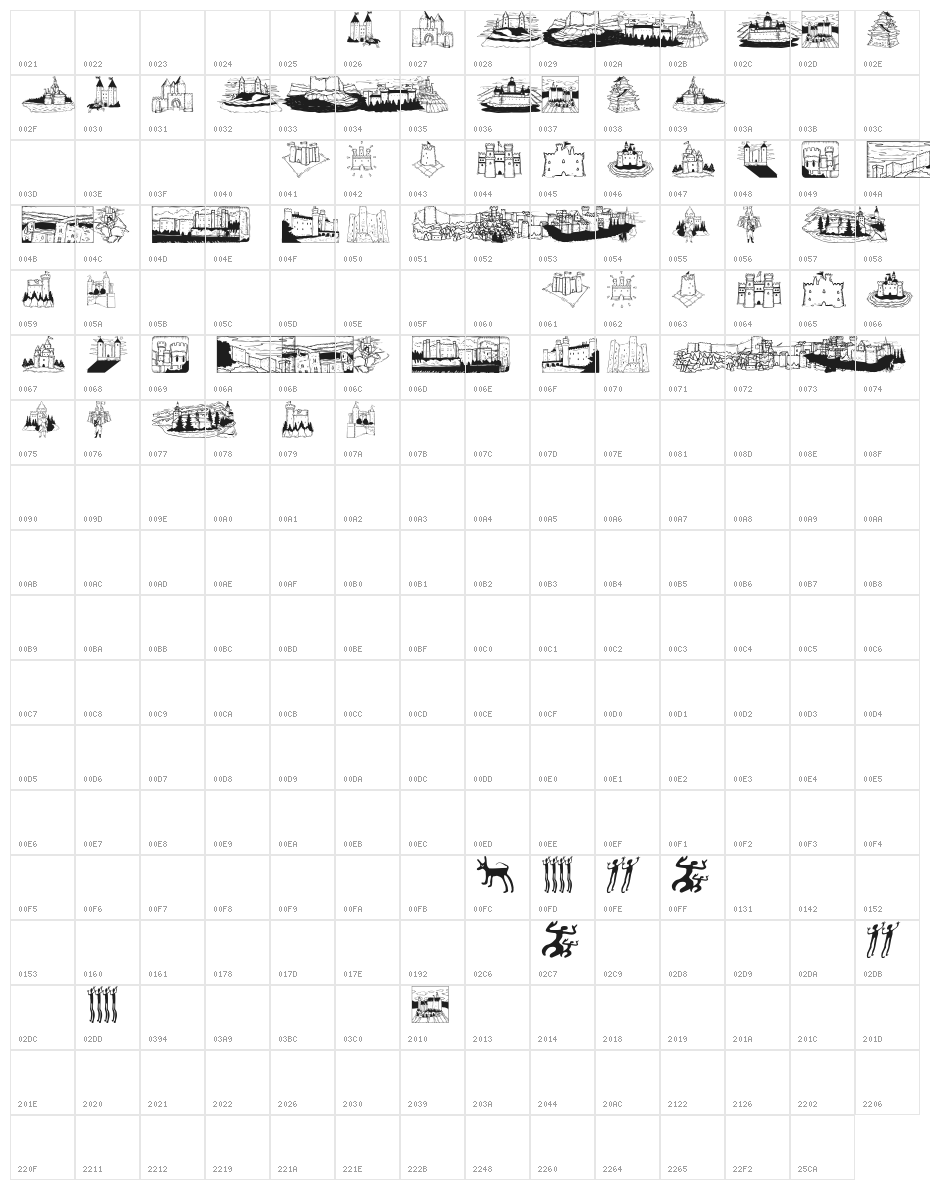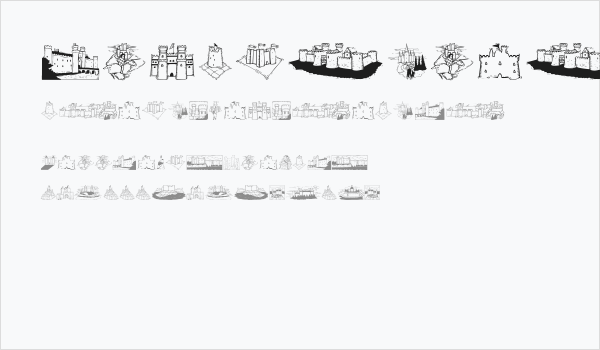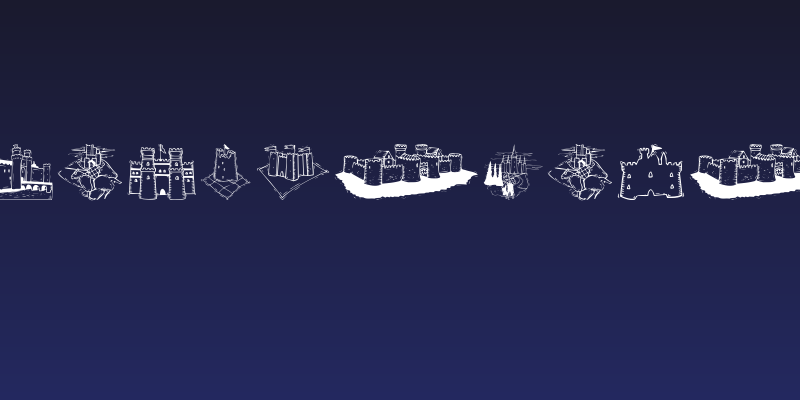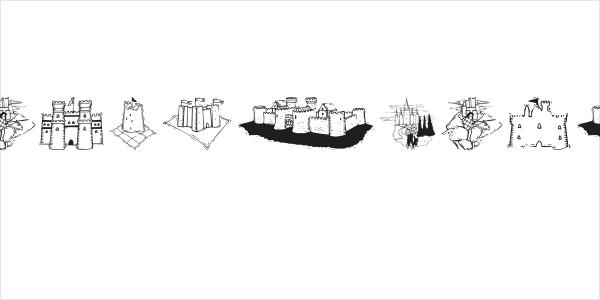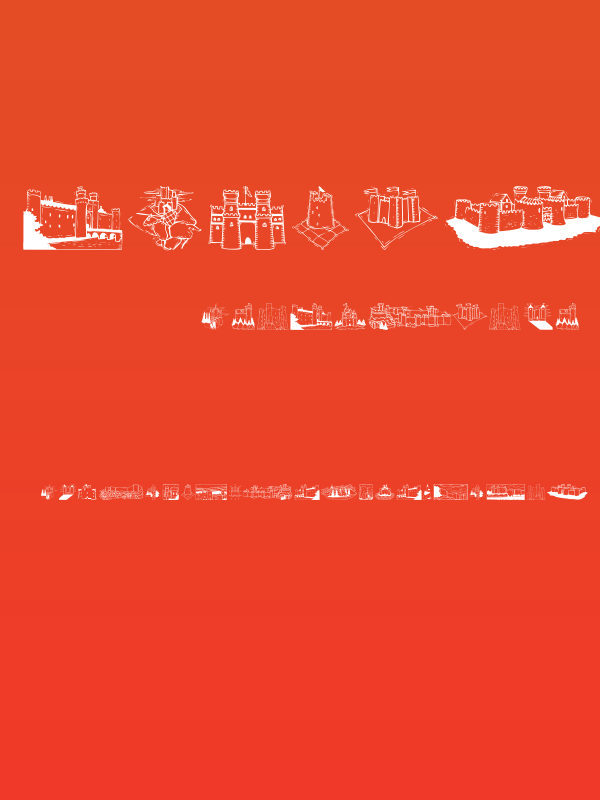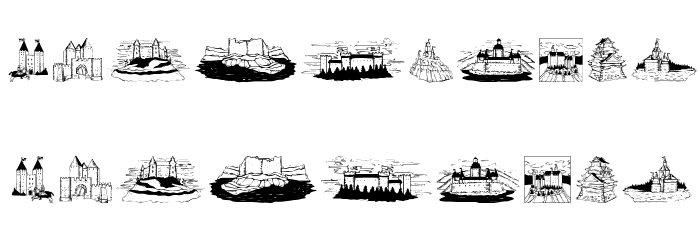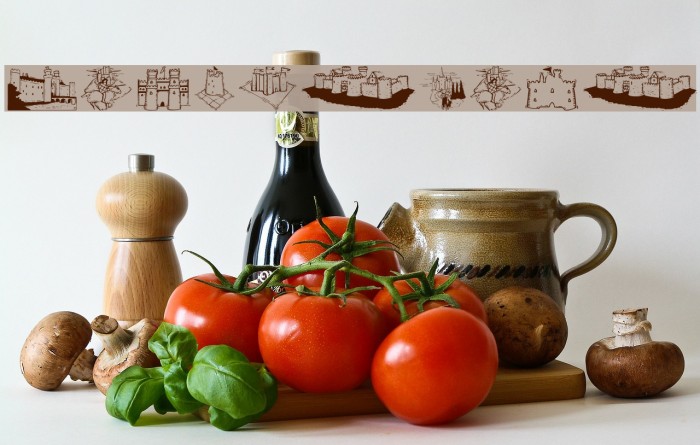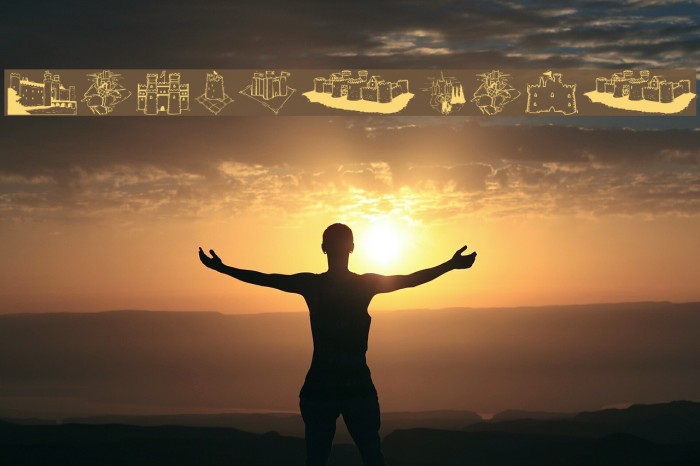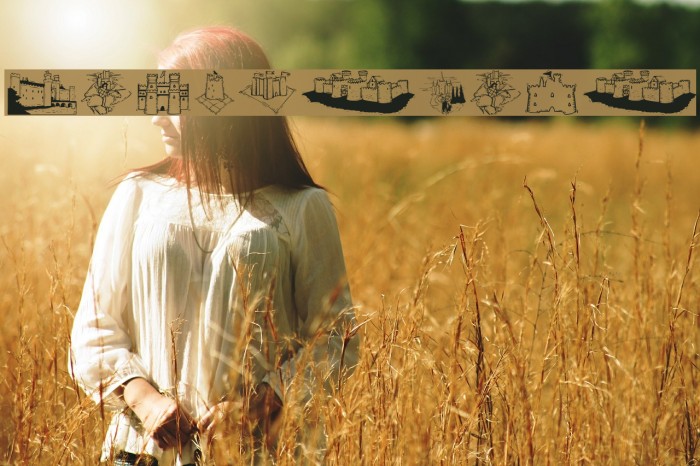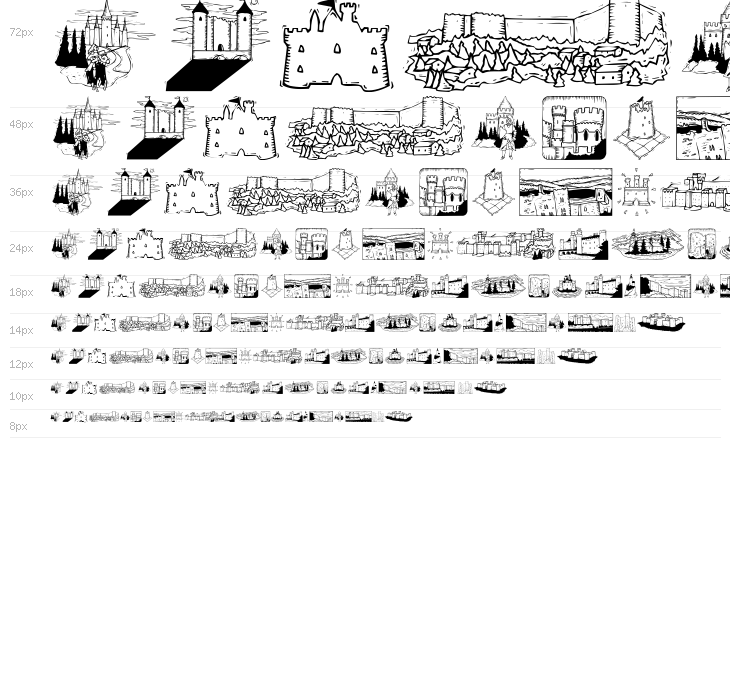
OldCastles Font
OldCastles Description
A decorative display font featuring hand-drawn illustrations of old castles and fortress landscapes, each character represented by a unique detailed sketch. The style is reminiscent of pen-and-ink architectural drawings, with varying line thickness and intricate details.
| Overall Style | Decorative, Vintage, Hand-drawn |
| Use Case | Logos, Headlines, Posters, Themed graphics |
| Proposed Projects | Book covers, fantasy maps, themed invitations, educational posters, game titles, historical presentations. |